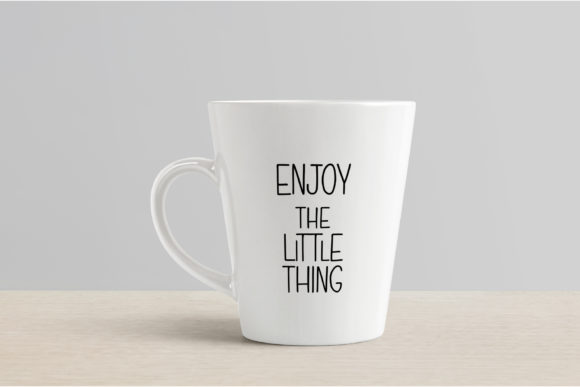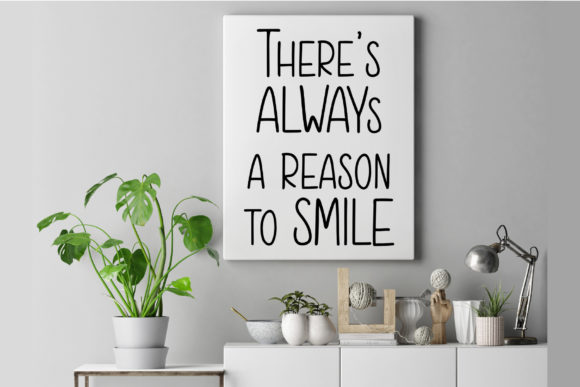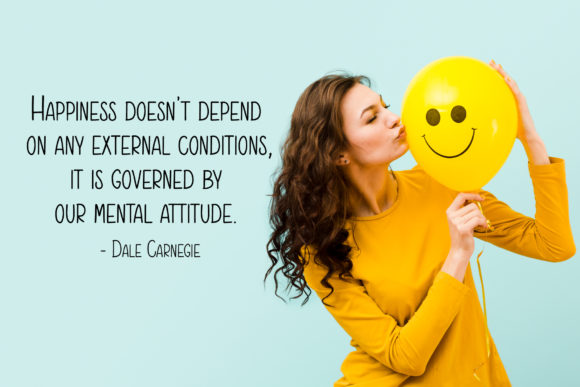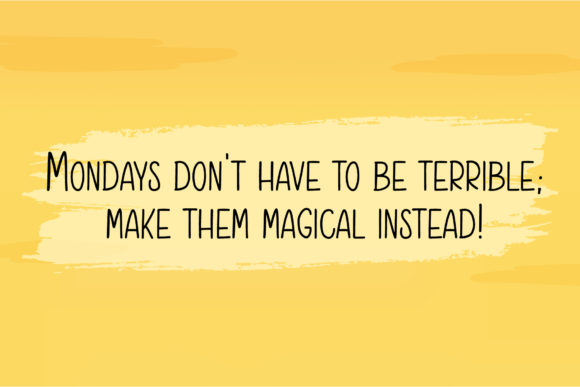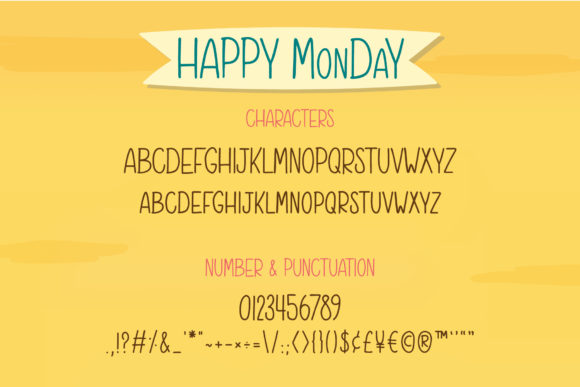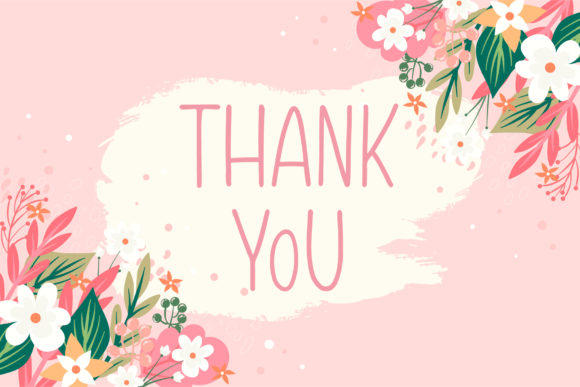
Introducing Happy Monday Font: The Sweet and Friendly Handwritten Font
Are you tired of using the same old fonts in your designs? Do you want to add a touch of personality and whimsy to your creations? Look no further than Happy Monday Font, a sweet and friendly handwritten font that’s perfect for designers and crafters alike. With its natural and unique style, Happy Monday Font is incredibly versatile and can be used in a wide range of designs, from invitations and greeting cards to branding and advertising.
The Characteristics of Happy Monday Font
So, what makes Happy Monday Font so special? For starters, its handwritten style gives it a warm and approachable feel that’s perfect for designs that need a personal touch. The font’s natural and unique style also makes it stand out from more traditional fonts, adding a touch of whimsy and playfulness to any design. And with its incredible versatility, Happy Monday Font can be used in a wide range of design applications, from digital designs to print materials.
The Benefits of Using Happy Monday Font
There are many benefits to using Happy Monday Font in your designs. For one, it’s incredibly easy to read and understand, making it perfect for designs that need to communicate a message clearly and effectively. Additionally, the font’s friendly and approachable style makes it perfect for designs that need to create a positive and uplifting mood. And with its unique and natural style, Happy Monday Font can help your designs stand out from the crowd and grab attention.
How to Use Happy Monday Font in Your Designs
So, how can you use Happy Monday Font in your designs? The possibilities are endless! Here are a few ideas to get you started:
- Use Happy Monday Font in your invitations and greeting cards to add a personal touch and create a warm and welcoming atmosphere.
- Incorporate Happy Monday Font into your branding and advertising designs to add a touch of personality and whimsy.
- Use Happy Monday Font in your digital designs, such as social media graphics and blog posts, to add a touch of playfulness and creativity.
- Experiment with Happy Monday Font in your print materials, such as brochures and flyers, to create a unique and eye-catching design.
Tips and Tricks for Getting the Most Out of Happy Monday Font
Here are a few tips and tricks for getting the most out of Happy Monday Font:
- Use Happy Monday Font in combination with other fonts to create a unique and visually appealing design.
- Don’t be afraid to get creative and try new things – Happy Monday Font is incredibly versatile and can be used in a wide range of design applications.
| Font Name | Happy Monday Font |
| Author | AquariiD |
In conclusion, Happy Monday Font is a sweet and friendly handwritten font that’s perfect for designers and crafters alike. With its natural and unique style, Happy Monday Font is incredibly versatile and can be used in a wide range of designs. Whether you’re looking to add a touch of personality and whimsy to your designs or create a positive and uplifting mood, Happy Monday Font is the perfect choice. So why wait? Download Happy Monday Font today and start creating your own unique and eye-catching designs!
The only limit is your imagination!